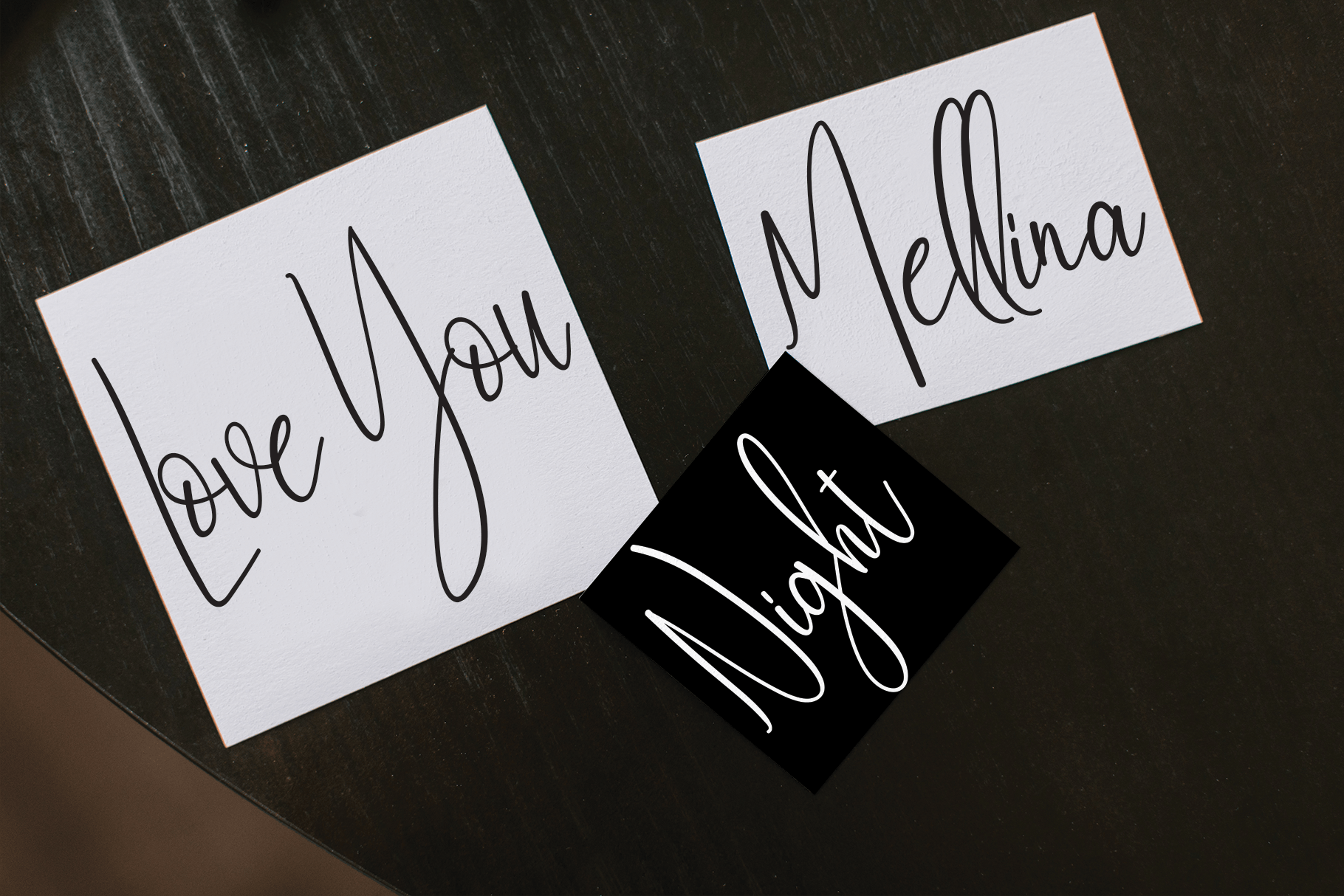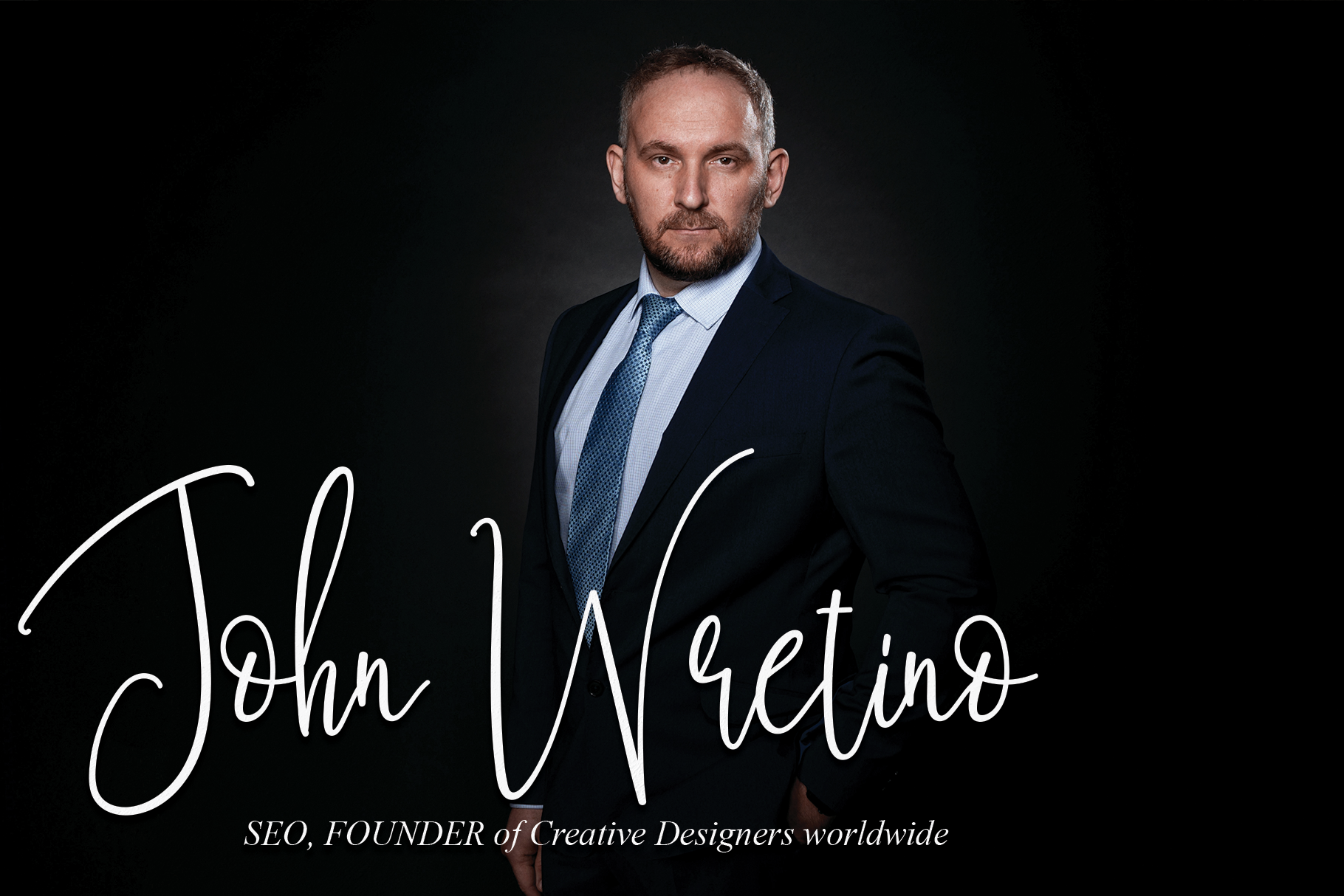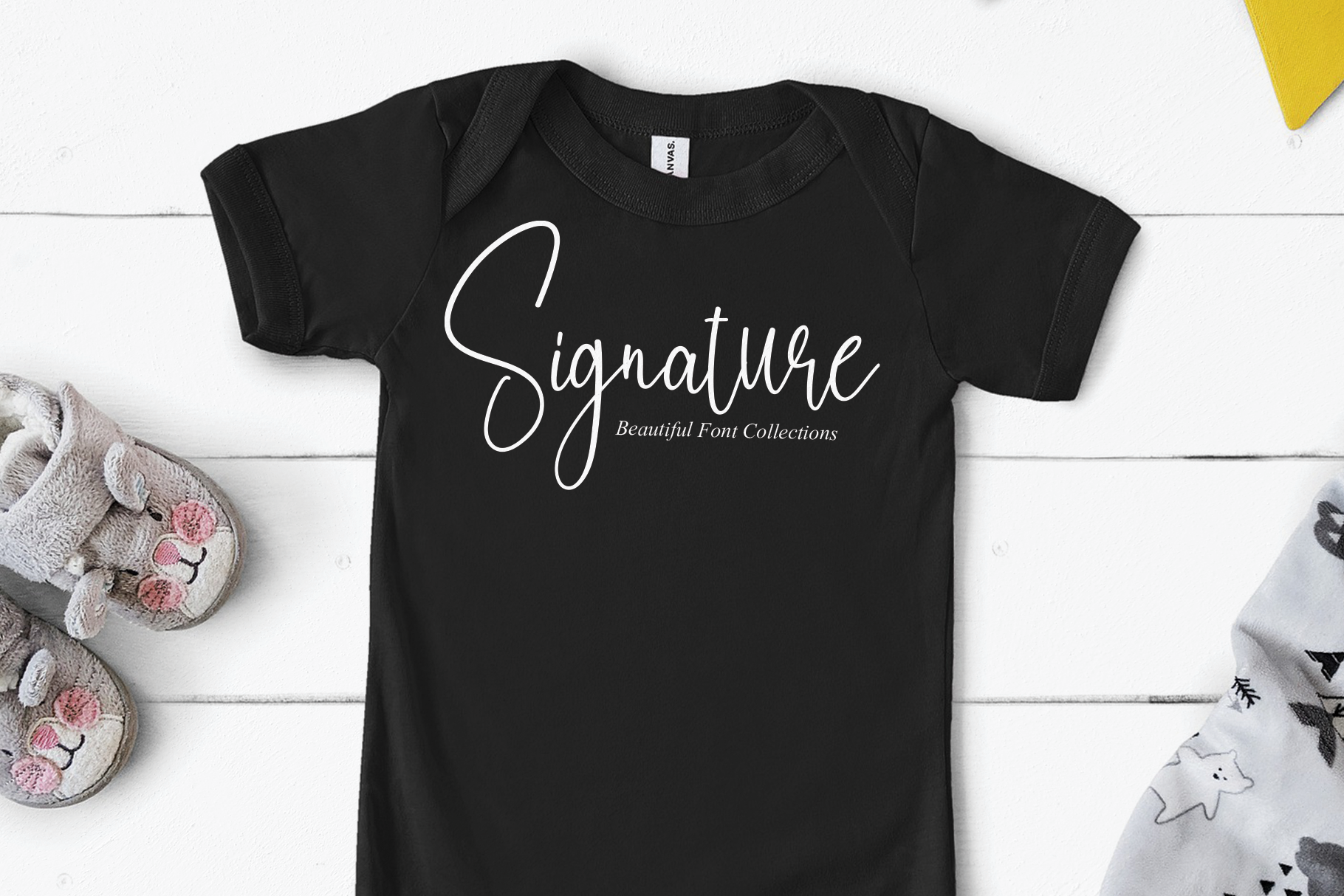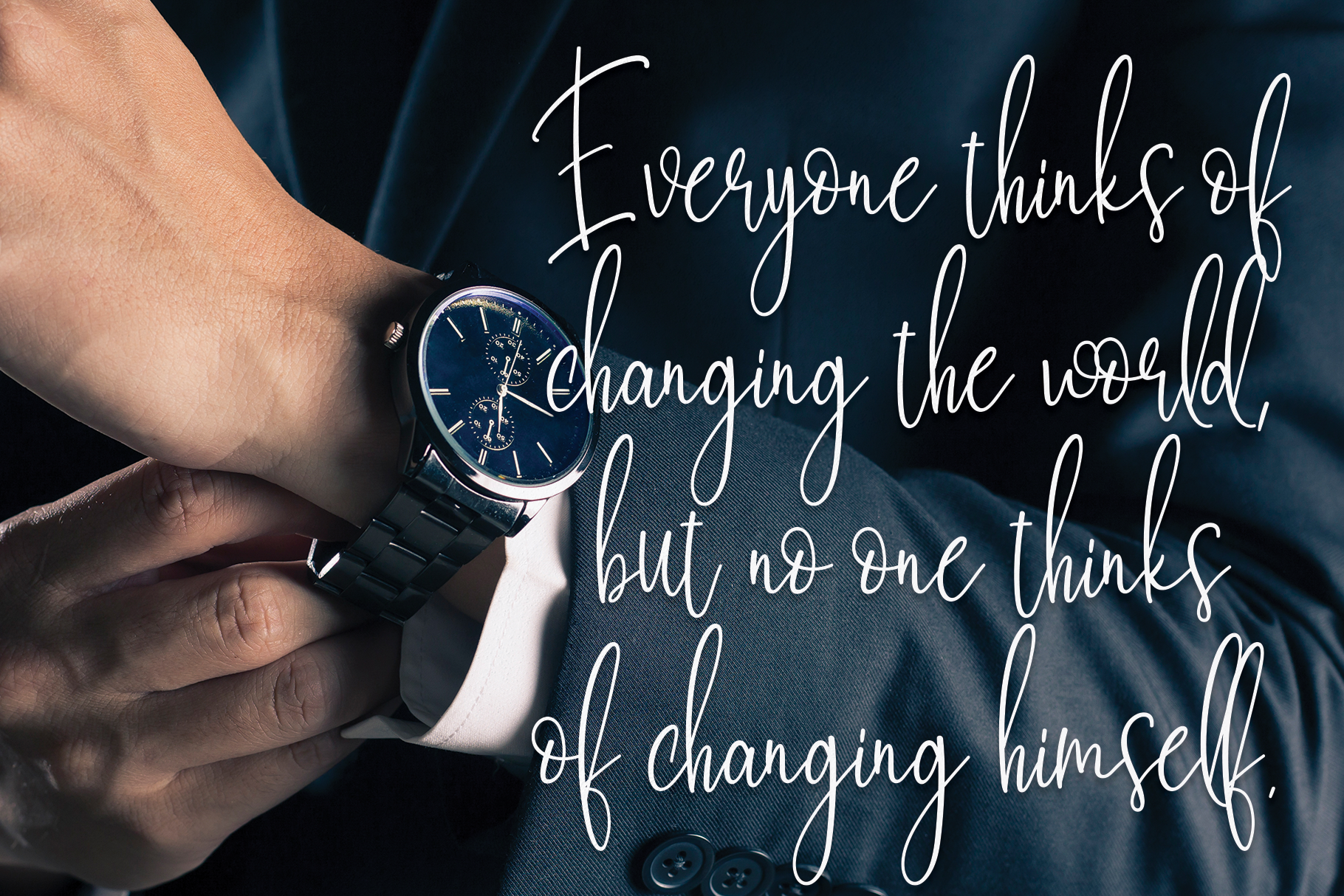
Bestie Signature Script Font
This is a slim and smooth script font. It is perfect for any branding project such as logos, t-shirt printing, creative products, and more. It will look extraordinary in a variety of contexts.
the latest style letters are perfect for wall displays, wedding invitations, social media post logos, advertisements, product packaging, product designs, labels, photography, watermarks, invitations, stationery, and any project that requires taste handwriting.